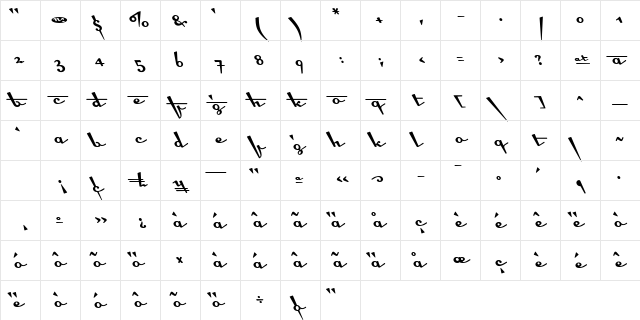
Cottingley Regular Free Font
Cottingley Regular
Foundry: Rian Hughes . A Device font
Design Context for Cottingley
Cottingley is a composed and adaptable typeface that performs quietly and consistently across a wide range of design contexts.